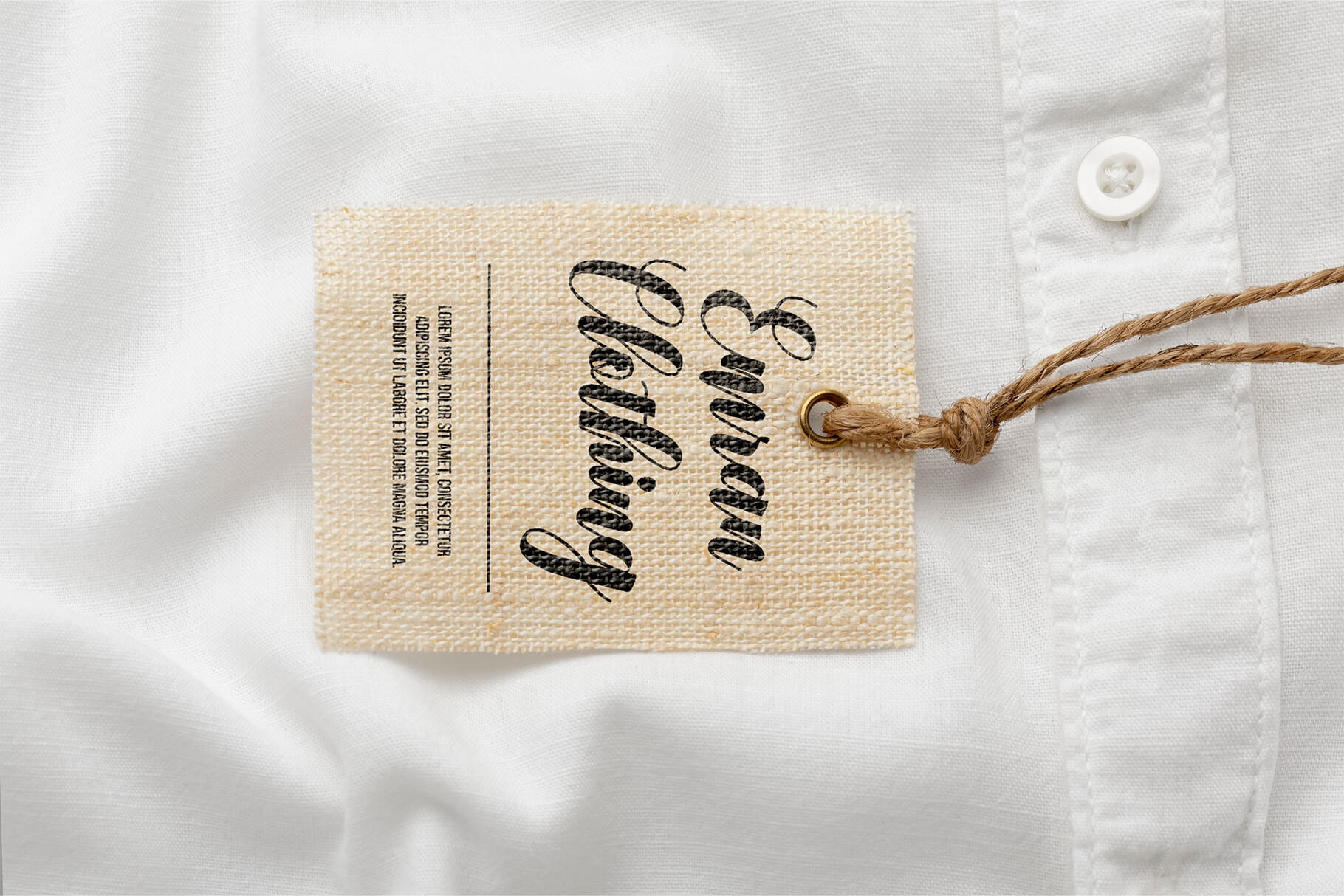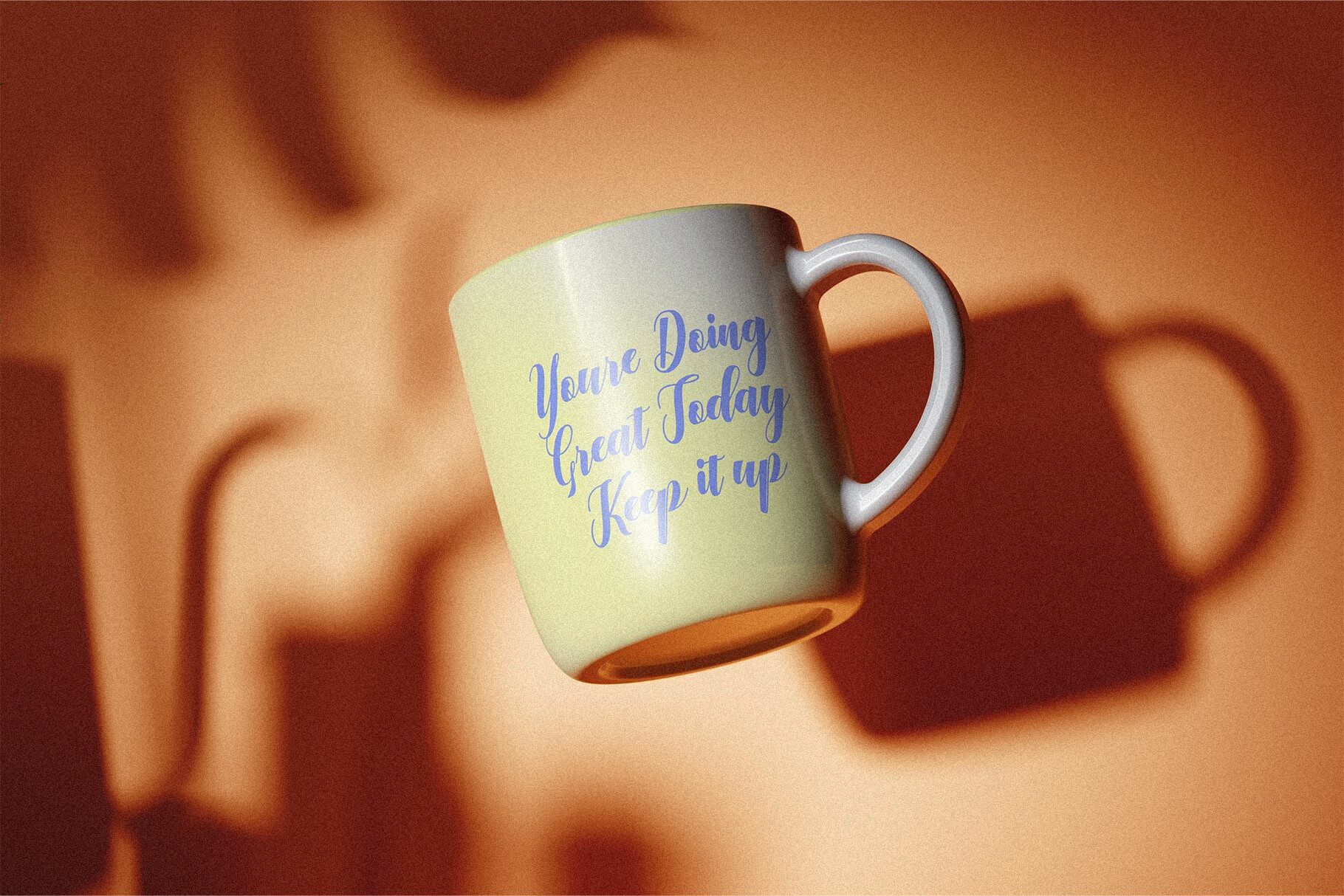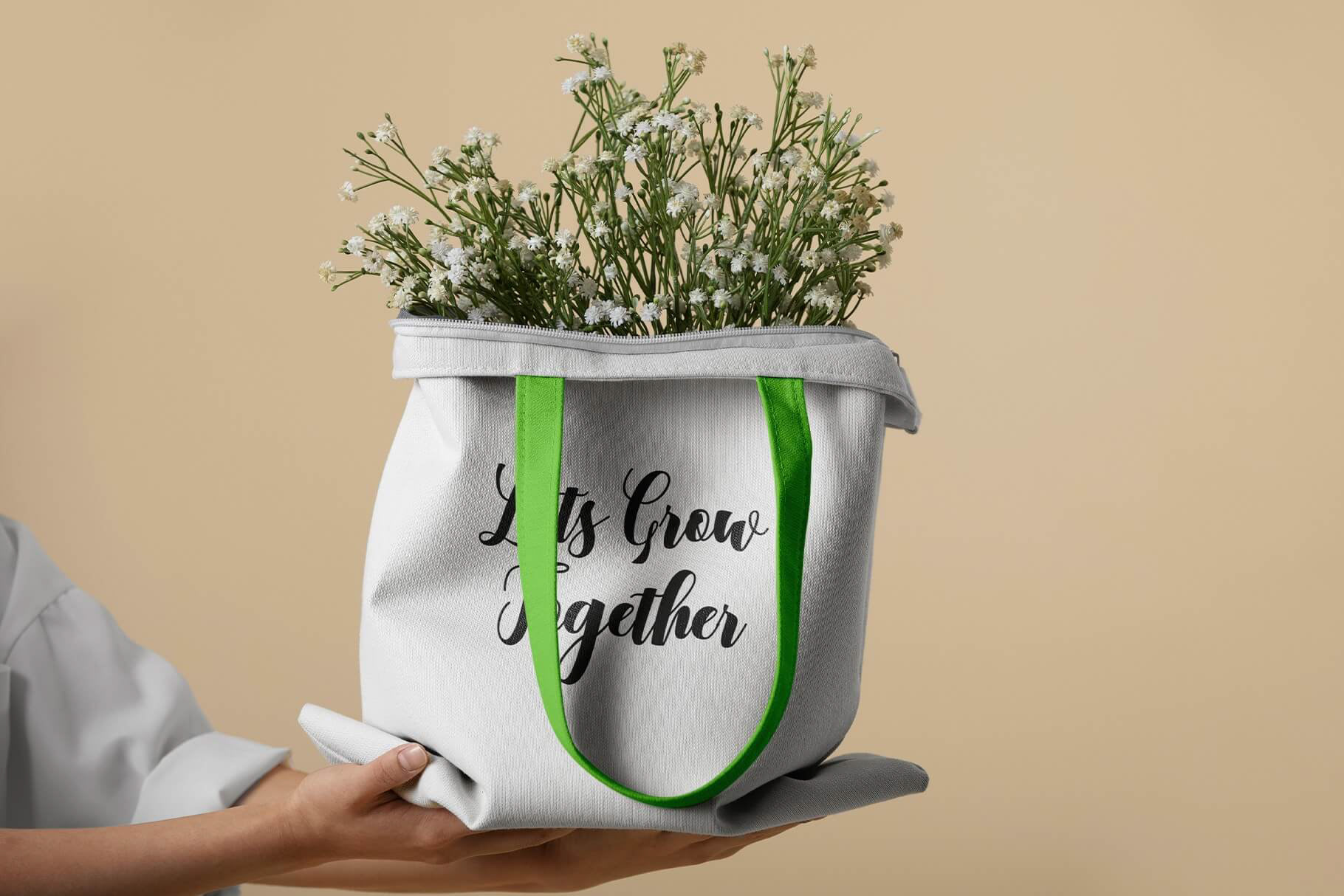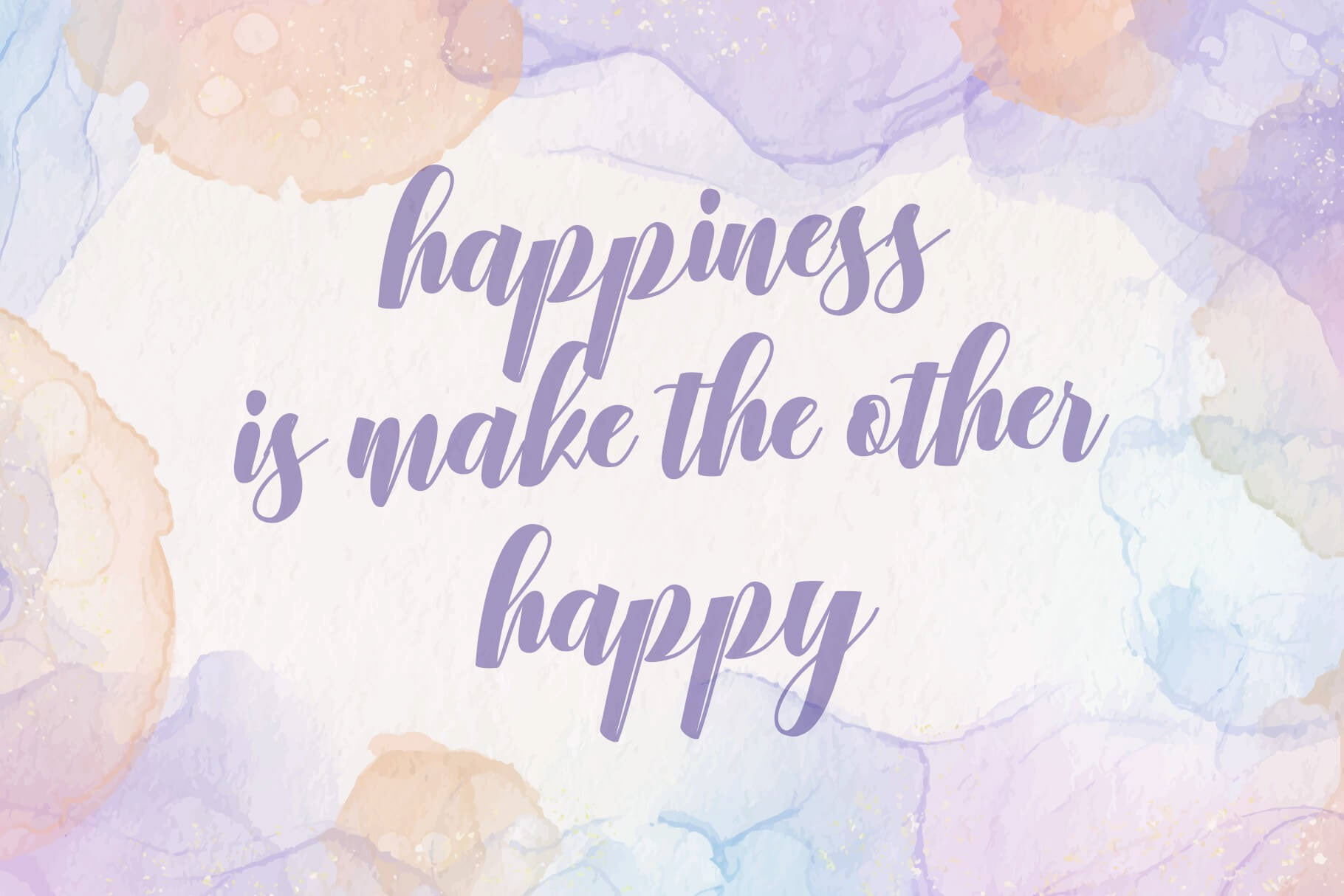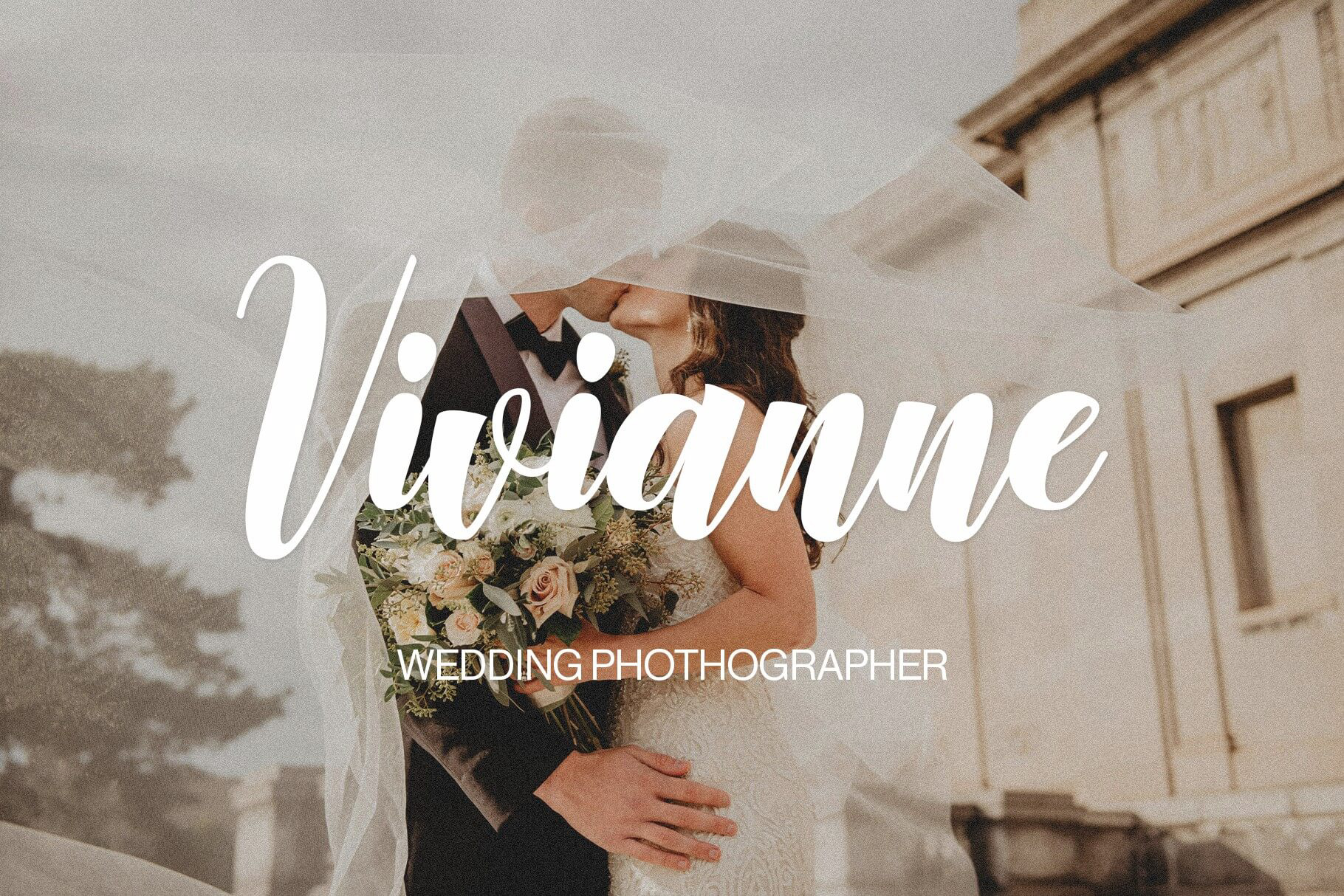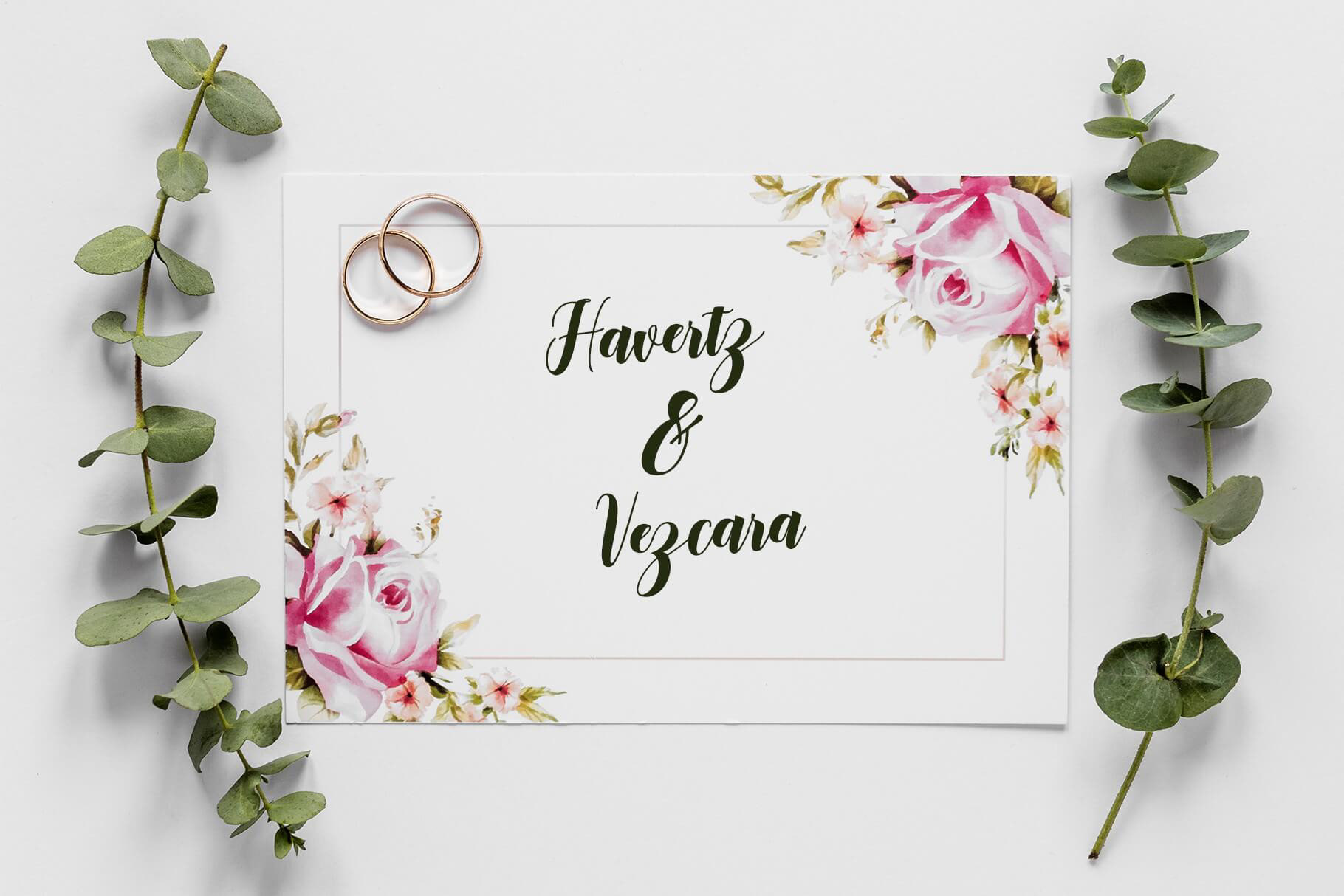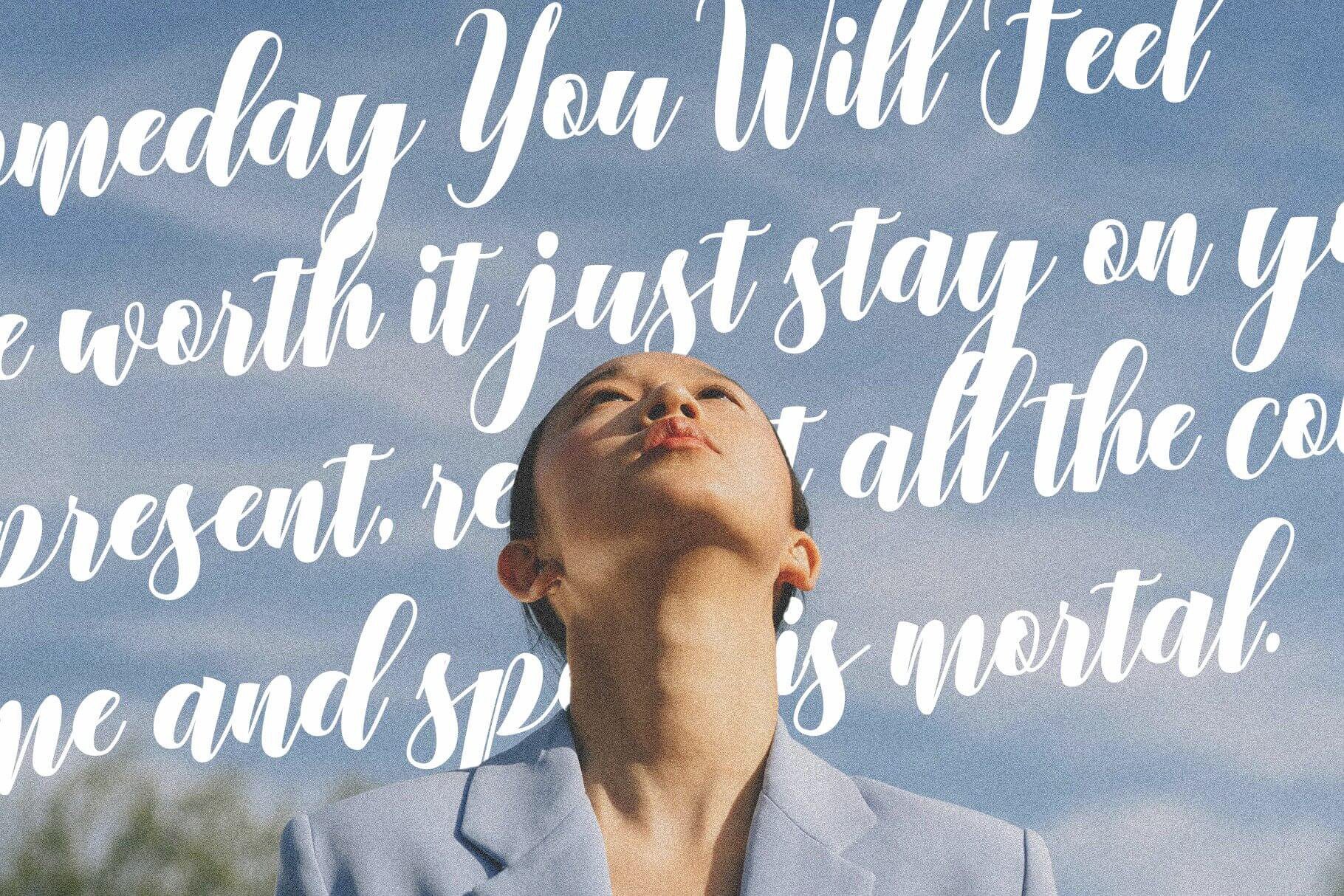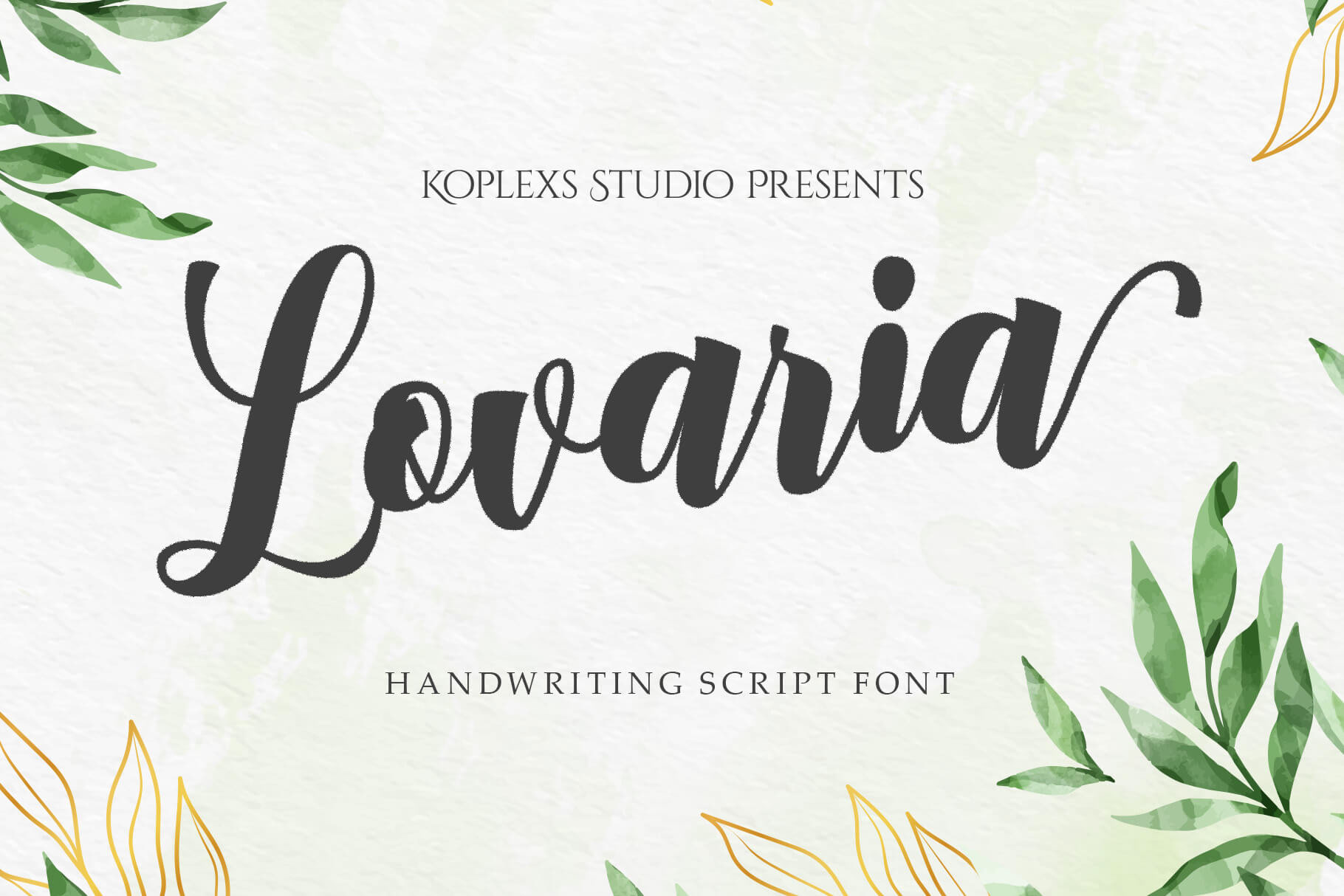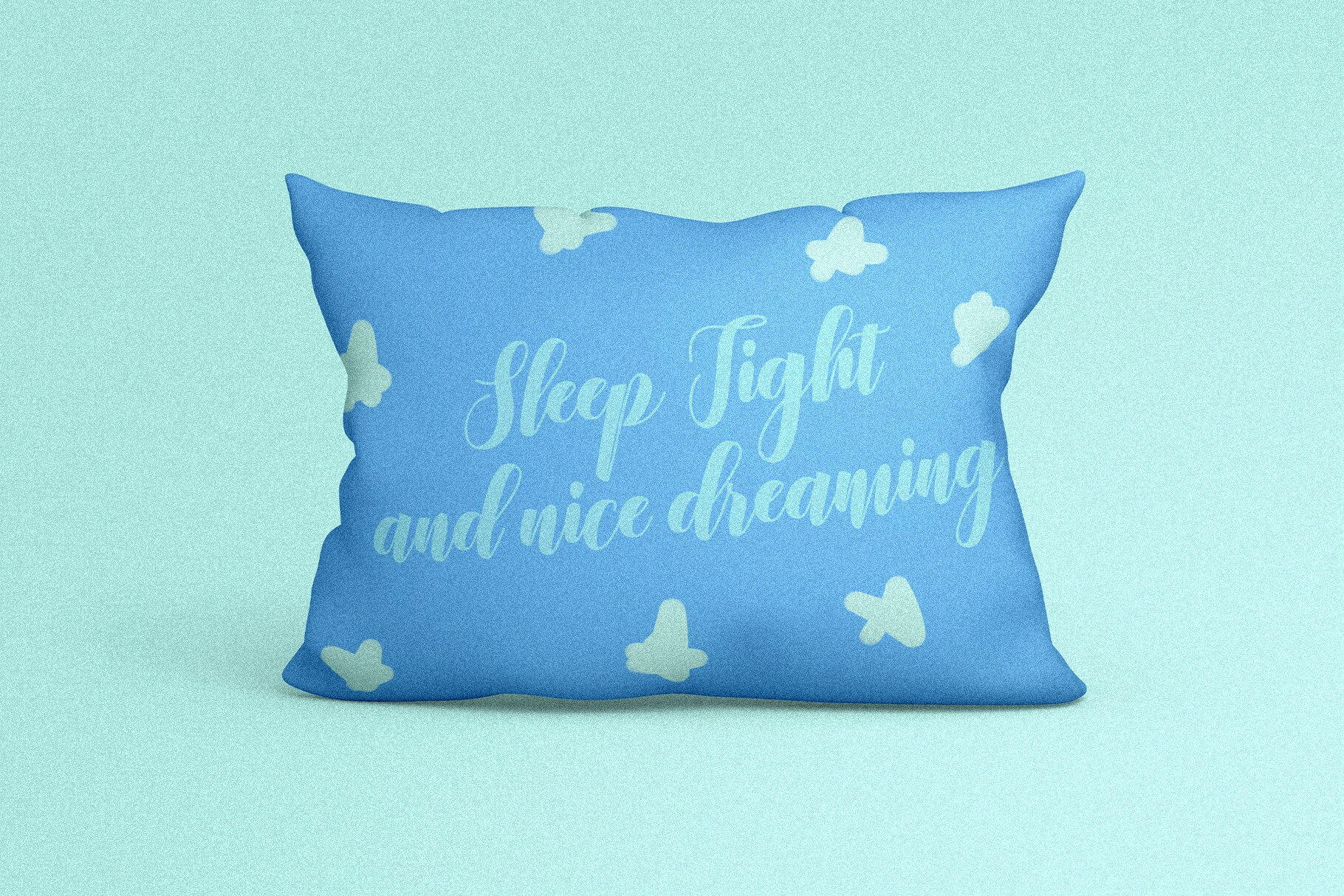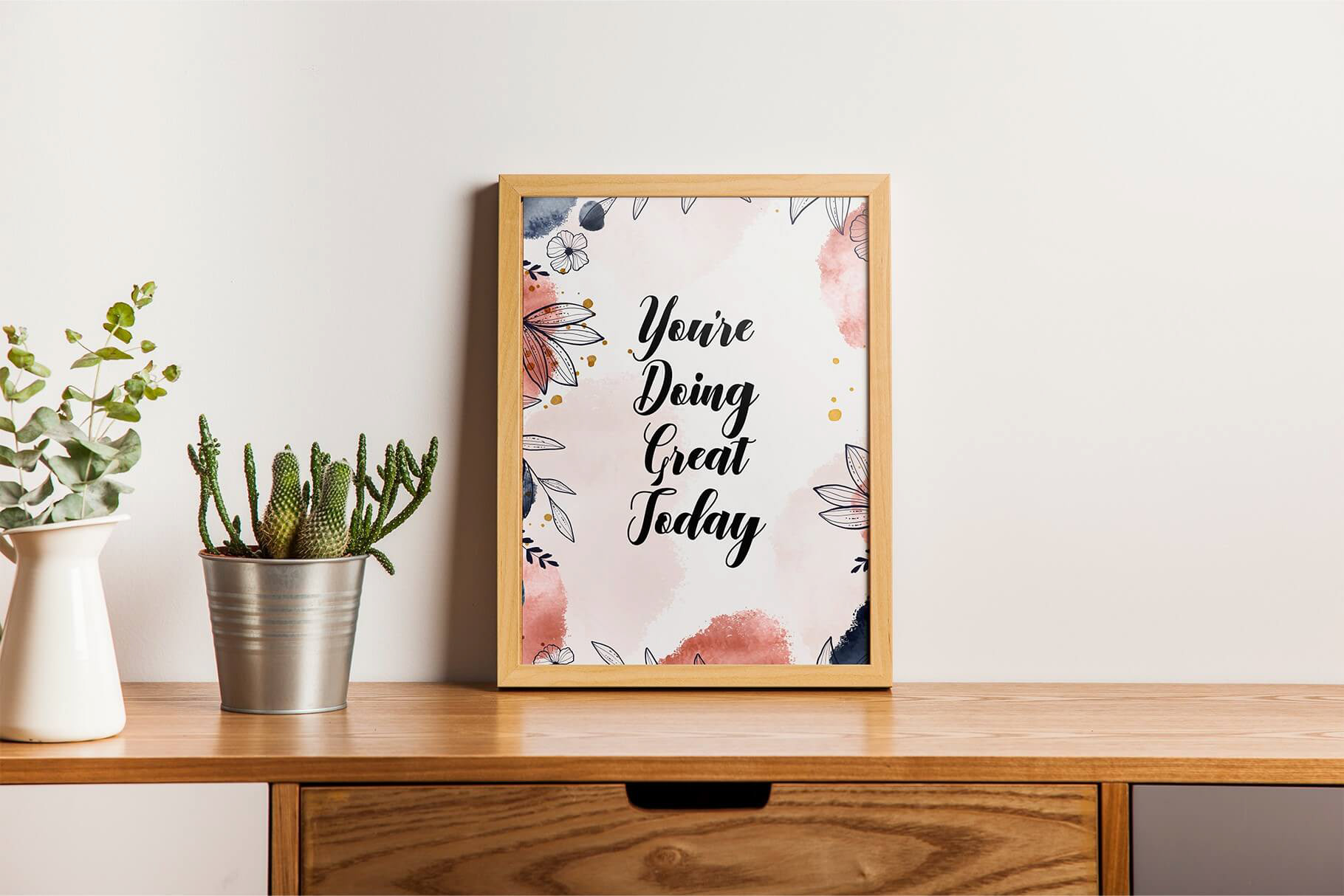
Lovaria - Handwriting Script Font
Lovaria, a charming and elegant handwriting script font that brings a touch of sophistication to your designs. Lovaria is crafted with meticulous attention to detail, offering a smooth and flowing script that mimics the graceful strokes of a handwritten note. Perfect for adding a personal and authentic feel to any project, this font is ideal for wedding invitations, logos, branding, stationery, social media posts, product packaging, product designs, label, photography, watermark, invitation, stationery, and any projects that need handwriting taste..